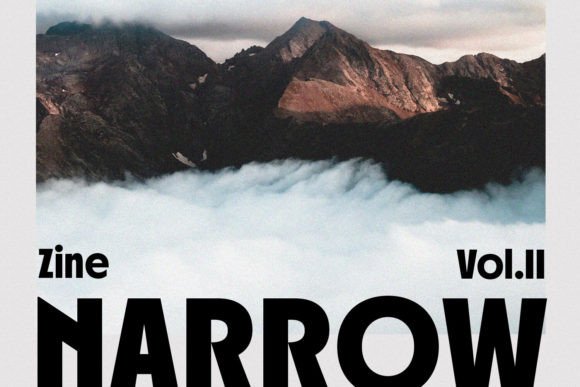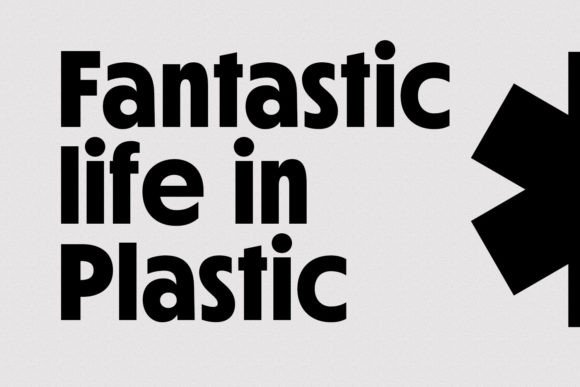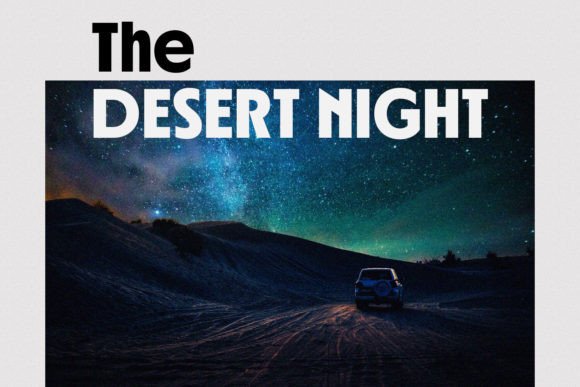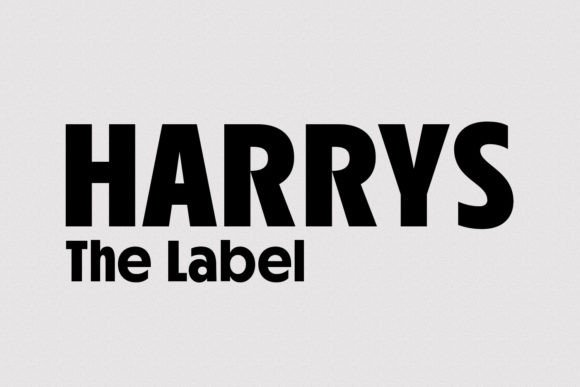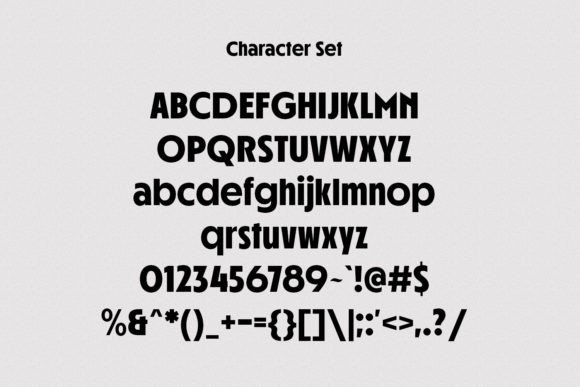
Introduction to Nasmo Font
Have you ever stared at a blank canvas, waiting for that spark of creativity to ignite your next project? For designers, moments like these are what drive us to experiment, to push boundaries, and to bring new ideas to life. And sometimes, all it takes is the right font to set the tone for a stunning work of art.
Enter the Nasmo Font, a retro sans display font that’s as versatile as it is eye-catching. With its regular stroke and playful character, this font is perfect for adding a touch of whimsy to your creative project. Whether you’re designing a logo, crafting a social media post, or writing a book title, the Nasmo Font is sure to elevate your work to the next level.
Nasmo Font
- High-quality font with a unique, modern design suitable for creative projects.
- Features a transparent background, making it easy to use with custom backgrounds.
- Perfect for designers and artists working on projects that require a stylish, eye-catching font.
- Includes a range of characters, including uppercase and lowercase letters, numbers, and punctuation.
- High-resolution font, suitable for use at various sizes and resolutions, including print and digital projects.
- Great design resource for anyone looking to add a touch of sophistication to their work.
Honest Review: Nasmo Font
As a designer, I’m always on the lookout for high-quality design resources that can elevate my creative project. The Nasmo Font caught my attention, and I decided to give it a try. Here’s my honest review.
- The Nasmo Font has a unique and modern design that can add a touch of sophistication to any project.
- The font has a transparent background, making it easy to use in a variety of design scenarios.
- The font selection is limited, with only a few styles to choose from.
- The font may not be suitable for projects that require a lot of text, as it can be difficult to read at smaller font sizes.
Overall, I think the Nasmo Font is a solid addition to any designer’s toolkit. While it may have some limitations, its unique design and high quality make it a great choice for creative projects. If you’re looking for a free design resource to add some flair to your work, the Nasmo Font is definitely worth checking out.
Nasmo Font
Using Nasmo Font in Your Design Project
Nasmo Font is a high-quality design resource, perfect for creative projects that require a unique and modern touch. With its transparent background, this font is ideal for use in presentations, social media graphics, and other digital designs.
Tips for Getting the Most Out of Nasmo Font
To get the most out of Nasmo Font, try experimenting with different font sizes, colors, and combinations. This font is versatile and can be used in a variety of design contexts.
Nasmo Font is perfect for:
Presentations and slideshows
Social media graphics and posts
Blog posts and articles
Marketing materials and flyers
Alternatives to Nasmo Font
The Great Vibes Font is a high-quality, elegant script font perfect for creative projects that require a touch of sophistication. It’s ideal for use in headings, titles, and other prominent text elements. When to use: wedding invitations, luxury branding, and high-end packaging. Compared to Nasmo Font, Great Vibes Font has a more refined and classic look, making it suitable for more formal designs.
The Alex Brush Font is a beautiful, handwritten script font with a touch of elegance and sophistication. It’s perfect for use in creative projects that require a personal touch. When to use: invitations, stationery, and other paper-based designs. Compared to Nasmo Font, Alex Brush Font has a more delicate and refined look, making it suitable for designs that require a softer touch.
The Pacifico Font is a high-quality, elegant script font with a relaxed and casual feel. It’s perfect for use in creative projects that require a touch of beachy or tropical vibe. When to use: travel brochures, restaurant menus, and other designs that require a laid-back atmosphere. Compared to Nasmo Font, Pacifico Font has a more relaxed and casual look, making it suitable for designs that require a more laid-back tone.